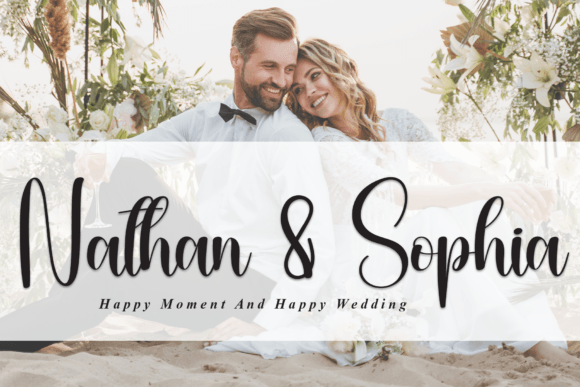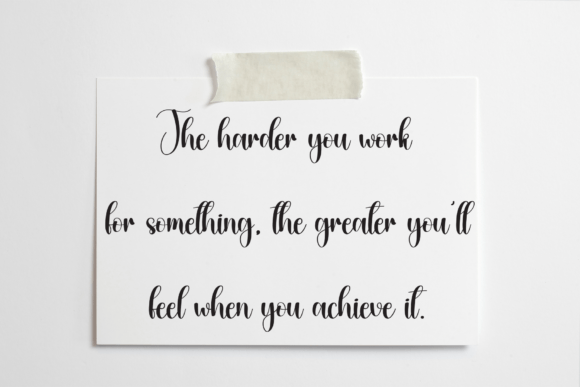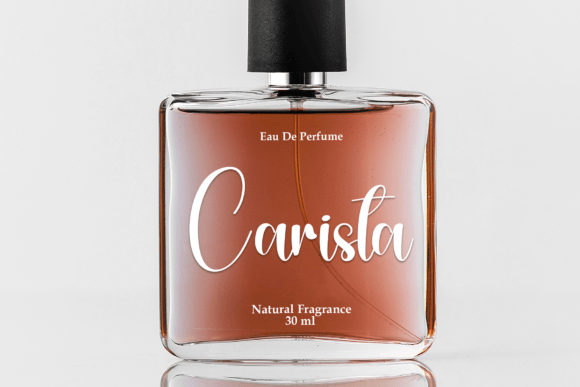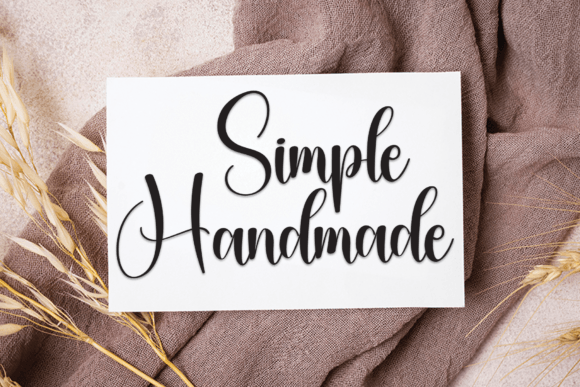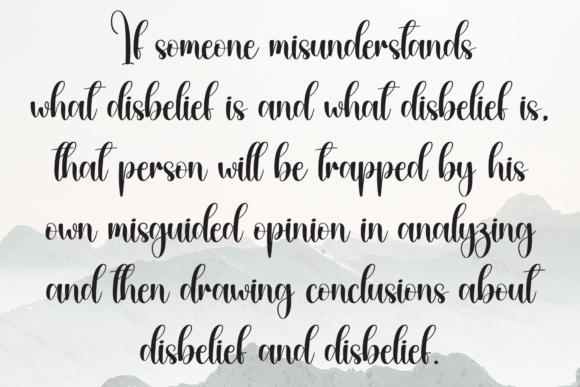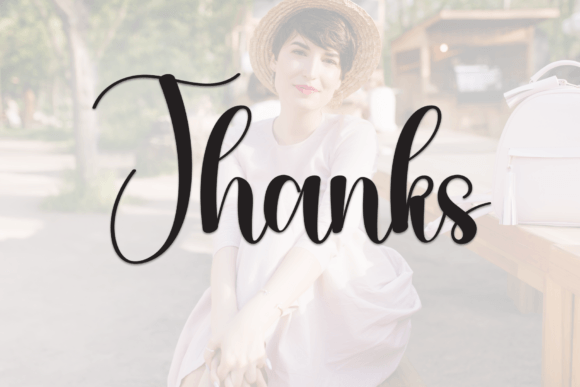
Discover the Joy of Hand-Crafted Design
As a designer, have you ever found yourself in the midst of a creative block, struggling to convey the perfect tone for a special occasion? You want your design to sparkle with personality, to make the recipient feel loved and appreciated. That’s where the Angela Delightful Font comes in – a lighthearted, hand-crafted display font that’s sure to bring a smile to anyone’s face.
Perfect for adding a playful touch to wedding invitations, heartwarming cards, or any design that craves a splash of fun, this charming typeface is a must-have in any designer’s toolkit. With its unique, affectionate style, the Angela Delightful Font is the perfect way to add a personal touch to your designs and make them truly stand out.
Key Features of Angela Delightful Font
- Font Style: Script, Calligraphy, Handwritten
- Unique Characteristics: Features elegant, flowing connections between letters, creating a sense of movement and fluidity; perfect for titles, headings, and invitations
Designer Review: Angela Delightful Font
At first glance, Angela Delightful Font is a whimsical and playful choice for any project. The design is full of character, with rounded edges and a friendly feel. I appreciate how the font is designed to mimic handwriting, which can add a personal touch to digital content. ✨
However, I do have some concerns about the font’s versatility. While it’s perfect for creative and editorial projects, it may not be the best choice for more formal or corporate materials. The font’s casual nature can make it come across as unprofessional in certain contexts. ⚠️
Another limitation is the font’s lack of scalability. At larger sizes, the font’s irregularities can become more noticeable, which may detract from the overall design. Additionally, the font’s ligatures and swashes can be a bit too ornate for some tastes. ⚠️
In terms of overall impression, Angela Delightful Font is a delightful (pun intended) addition to any designer’s toolkit. While it may not be suitable for every project, it’s a great choice for those looking to add some personality and whimsy to their designs. With some careful consideration of its limitations, this font can be a valuable asset in any designer’s arsenal.
- Whimsical and playful design
- Mimics handwriting for a personal touch
- Perfect for creative and editorial projects
- Lack of scalability
- Ligatures and swashes may be too ornate
Getting the Most Out of Angela Delightful Font
For optimal results, pair Angela Delightful Font with pastel colors and soft backgrounds. This font is ideal for creating whimsical and playful designs.
Angela Delightful Font is suitable for:
- Wedding invitations
- Food blog headers
- Stationery and greeting cards
Alternatives to Angela Delightful Font
Great Vibes is a beautiful, elegant script font. It is ideal for use in wedding invitations, branding, and any other design where a touch of sophistication is needed. It has a similar feel to Angela Delightful Font but with a more refined and luxurious look.
Crimson Text is a serif font with a vintage feel. It is suitable for use in body text, headlines, and titles where a classic, elegant look is required. While it has a different style compared to Angela Delightful Font, it can be used as an alternative in situations where a more formal tone is needed.
Carolyna Pro is a modern script font with a feminine touch. It is ideal for use in branding, logos, and other designs where a playful, elegant look is required. It has a similar playful feel to Angela Delightful Font but with a more modern and sleek design.
Alex Brush is a beautiful, elegant script font. It is suitable for use in branding, logos, and other designs where a touch of sophistication is needed. While it has a similar feel to Angela Delightful Font, it has a more refined and polished look.